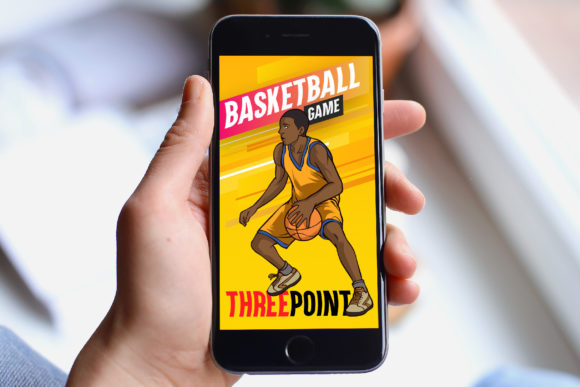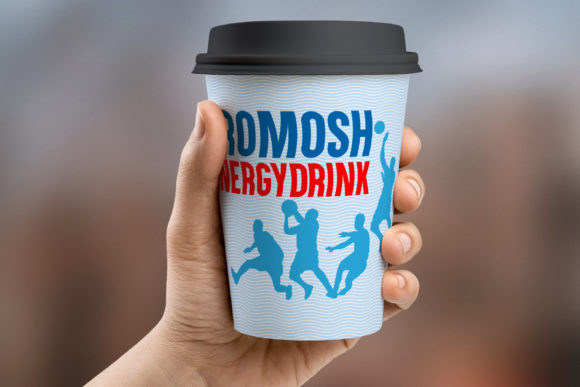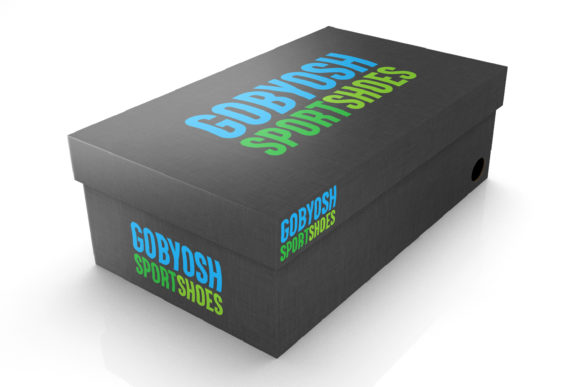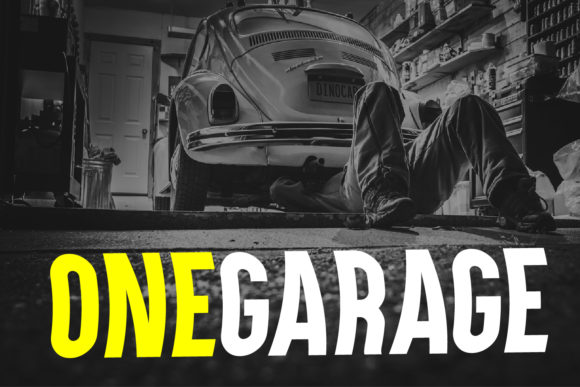
The Power of Brader Font: Elevate Your Designs with Bold and Chunky Letters
I’ll never forget the time I was working on a project for a client who wanted a bold, eye-catching font to make their brand stand out. I scoured the internet, tried countless fonts, but nothing seemed quite right. That was until I stumbled upon Brader Font. This bold and chunky lettered display font has been a game-changer for my designs, and I’m excited to share its awesomeness with you! 😊
An Honest Review of Brader Font
• ✨ Bold and attention-grabbing: Brader Font is perfect for making a statement. Its chunky letters demand attention and can instantly elevate your designs.
• ✅ Highly versatile: Whether you’re working on a logo, poster, or social media graphic, Brader Font can adapt to various design styles and themes.
• 💥 Easy to read: Despite its boldness, Brader Font remains surprisingly legible, even at smaller sizes.
While Brader Font is an excellent choice for many designs, there are a few things to keep in mind:
• 🤔 Limited use in body text: Due to its boldness, Brader Font might not be the best choice for lengthy body text. It’s better suited for headings, titles, or short phrases.
• ⚠️ May not be suitable for fine details: The chunky nature of Brader Font can make it difficult to render fine details or small text elements.
The Backstory of Brader Font
Brader Font was designed by a talented typographer who wanted to create a bold, attention-grabbing font that’s both fun and functional. Inspired by urban landscapes and street art, Brader Font embodies a sense of confidence and playfulness. Its chunky letters are perfect for making a statement and adding a touch of personality to your designs.
Q: What type of designs is Brader Font best suited for?
A: Brader Font is ideal for designs that require a bold, attention-grabbing font, such as logos, posters, social media graphics, and headlines.
Q: Is Brader Font available in different weights or styles?
A: Currently, Brader Font is available in a single weight. However, some font packages may include variations or alternate styles.